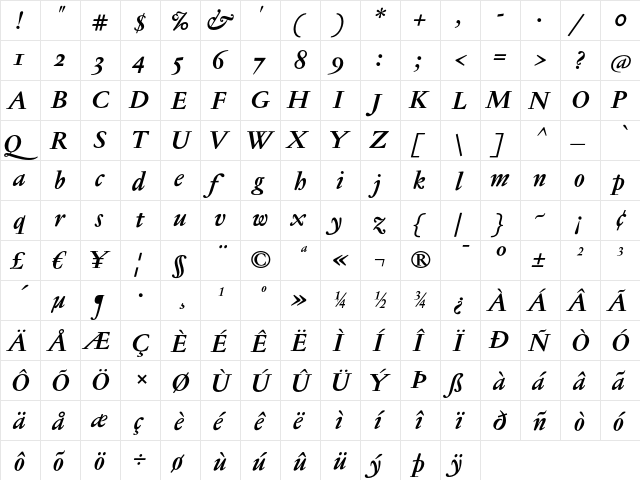
Jannon Text Med OSF Bold Italic Font Preview
Jannon Text Med OSF Bold Italic
Jannon Text Med OSF Bold Italic Font Details
| Foundry | Frantisek Storm, stormtype.com |
Design Context for Jannon Text Med OSF Typeface
Jannon Text Med OSF is a composed and adaptable typeface that performs quietly and consistently across a wide range of design contexts. The slanted form adds forward momentum and visual energy. The heavy weight commands attention and anchors typographic hierarchies.
Pro Tip: Use Jannon Text Med OSF for emphasis, pull quotes, and subheadings where its slanted energy can add rhythm to the layout.